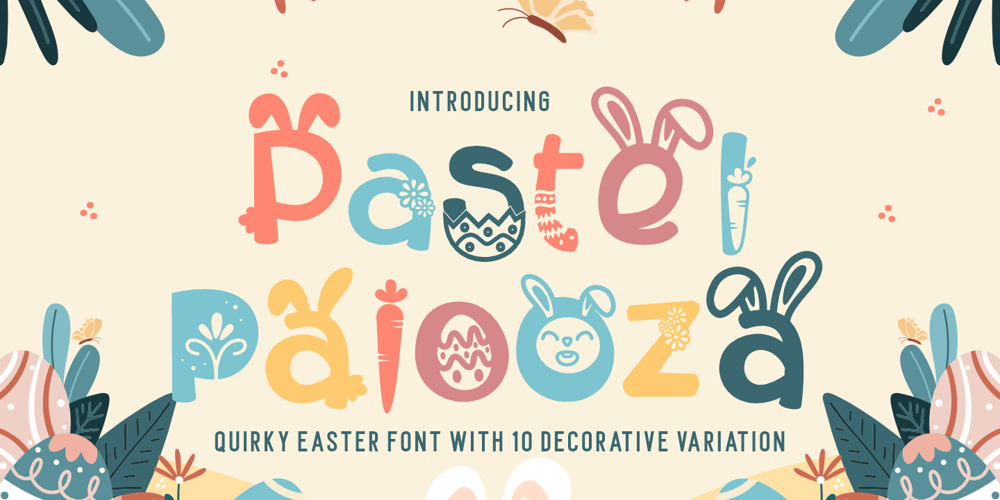
Pastel Palooza Font Family was designed by Putra Novembria Candra Kusuma and published by Putracetol. Pastel Palooza contains 10 styles and family package options. Pastel Palooza – Quirky Easter Display Font, a delightful and playful typeface designed with the joyous spirit of Easter in mind. This fun and decorative font captures the essence of the holiday, making it the perfect choice for Easter-themed projects. Crafted with care, Pastel Palooza features a total of 10 font variations within the typeface, each reflecting the whimsical elements of the season – from eggs and bunnies to flowers and carrots.